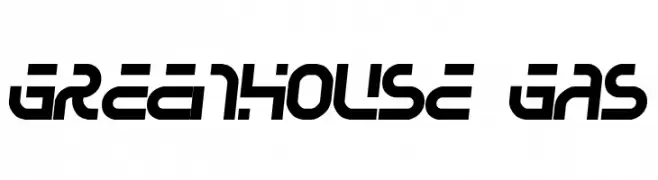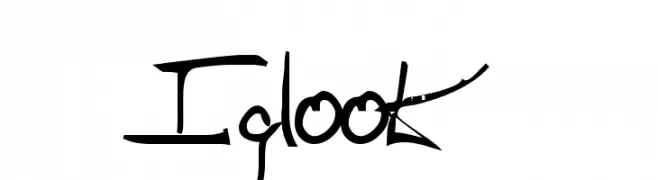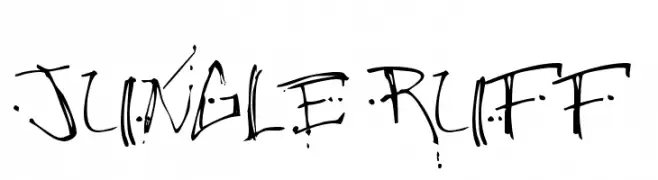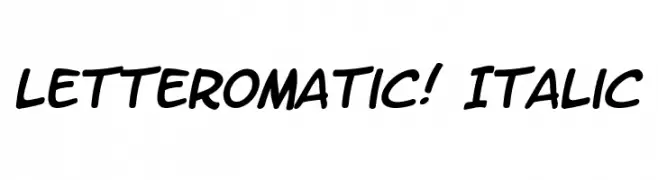
( Fonts by Levi Halmos )
A rustic, hand-drawn font with uneven strokes and a whimsical touch.
( Fonts by www.blambot.com )
A playful, handwritten-style italic font with bold, rounded strokes.
( Fonts by Utopiafonts )
A futuristic, geometric font with clean lines and unique character elements.
( Fonts by Jacob Fisher - www.pizzadude.dk )
A bold, futuristic font with geometric shapes and a dynamic style.
( Fonts by or from www.graffitifonts.net )
A dynamic, graffiti-inspired font with rough, hand-drawn strokes and a rebellious aesthetic.
( Fonts by Jacob Fisher - www.pizzadude.dk )
A bold, angular font with a modern and edgy design.